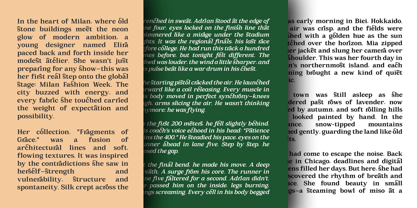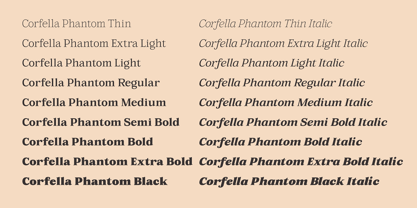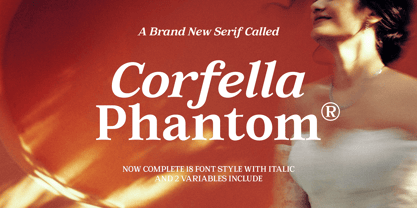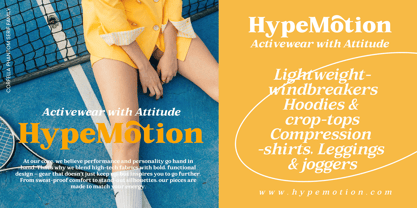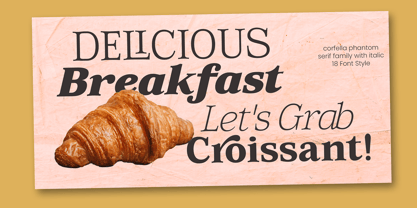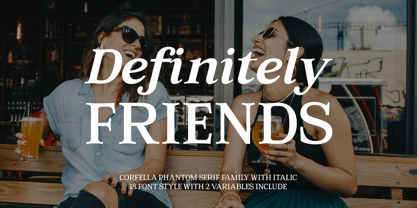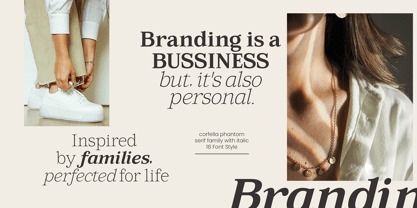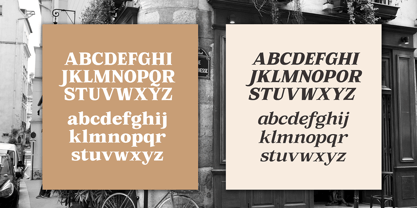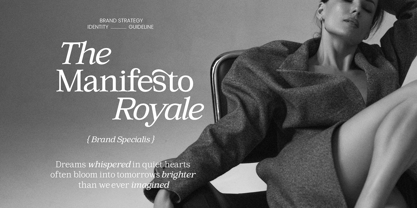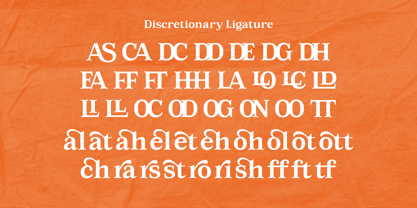
Corfella Phantom
by Propertype
The Corfella Phantom Font Family was designed by Nadia Auliana and published by Propertype. Corfella Phantom contains 155 styles and family package options. More about this family
The Corfella Phantom Font Family Pack is an Elegant serif font that comes in 20 different weights.
Designed to reflect nature, creating a sense of softness and natural expression.
The concept is pushed in a usability-focused direction, to serve as both a bold tool and a classy communicator.
The Corfella Phantom character set combines many of the features of open type - additional symbols,
both standard and optional, as well as punctuation in case and lower case - resulting in a stable workhorse set ready to handle projects of any size.